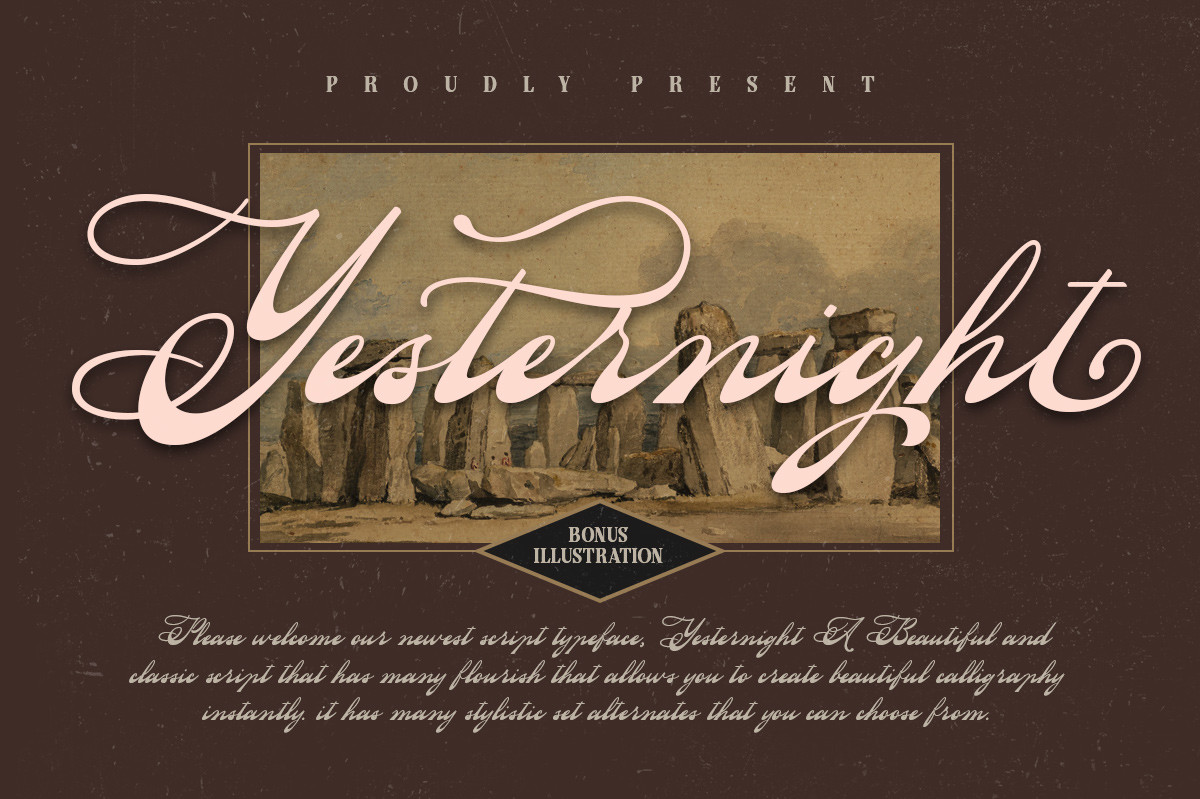
Yesternight Font
Yesternight Font is perfect for mysterious nightclub branding, atmospheric horror movie titles, moody jazz venue signage, nocturnal photography portfolios, dark romance novel covers, midnight event promotions, elegant evening wear boutiques, sophisticated cocktail bar menus, moonlit restaurant branding, and enchanting nighttime entertainment graphics. This evocative typeface brings nocturnal elegance to evening entertainment venues, nighttime photography studios, atmospheric music brands, moonlight tour companies, and mysterious lifestyle organizations.
Yesternight Font is exciting because it captures the haunting beauty and mysterious allure of nighttime through its atmospherically crafted letterforms that evoke memories of moonlit encounters and nocturnal magic. The font features shadowy characters with twilight proportions and mysterious details that reflect the enchanting darkness of yesterday's night, the romantic nostalgia of evening memories, and the sophisticated mystery of after-dark adventures. Its distinctive construction demonstrates nocturnal artistry with carefully shadowed elements that create an immediate sense of atmospheric mystery and evening elegance. The font's nighttime presence and mysterious authenticity make it perfect for brands seeking to communicate nocturnal sophistication, evening mystery, and the enchanting allure of nighttime experiences in their visual communications.
Yesternight Font family includes various atmospheric styles: Light, Regular, Medium, Bold, Italic, Shadow, Moonlight, Mysterious, Condensed, Extended, Nocturnal, and Evening variants. Each family member maintains the core nighttime DNA while offering different levels of mystery for diverse atmospheric design applications. The comprehensive font collection ensures consistent nocturnal branding across evening campaigns, nighttime products, and mysterious communication materials.
Whether you're creating nighttime brand identities, designing evening marketing materials, developing atmospheric website headers, or crafting nocturnal promotional campaigns, Yesternight Font delivers outstanding mysterious appeal and nighttime authenticity. The font's distinctive shadowy personality excels in evening logos, atmospheric packaging design, nocturnal applications, and nighttime projects where mysterious elegance and atmospheric sophistication are essential.